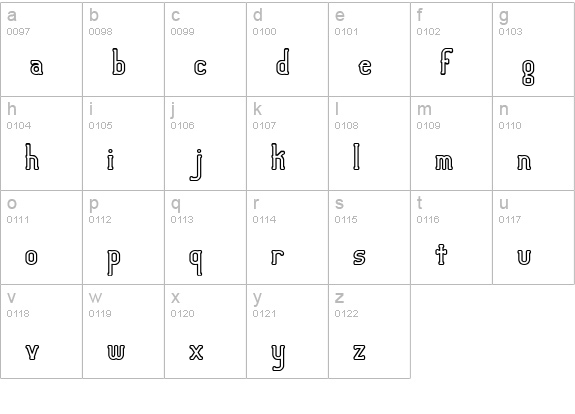
Lucid Type B Outline (BRK) Font Details
Lucid Type B Outline (BRK) font is a sleek and modern typeface that exudes sophistication and clarity. Its clean lines and defined edges make it perfect for a wide range of design projects, from branding to editorial layouts. The outline style adds a unique touch to the overall look, making text stand out with a subtle elegance. What sets Lucid Type B Outline (BRK) font apart is that it is available for free download at FontsMarket.com. This means that you can easily access this stylish font without any cost, making it a valuable addition to your design toolkit. Whether you're working on a website, poster, or logo, this font is sure to elevate your project with its contemporary aesthetic and versatility. Download Lucid Type B Outline (BRK) today and bring a touch of sophistication to your design creations.